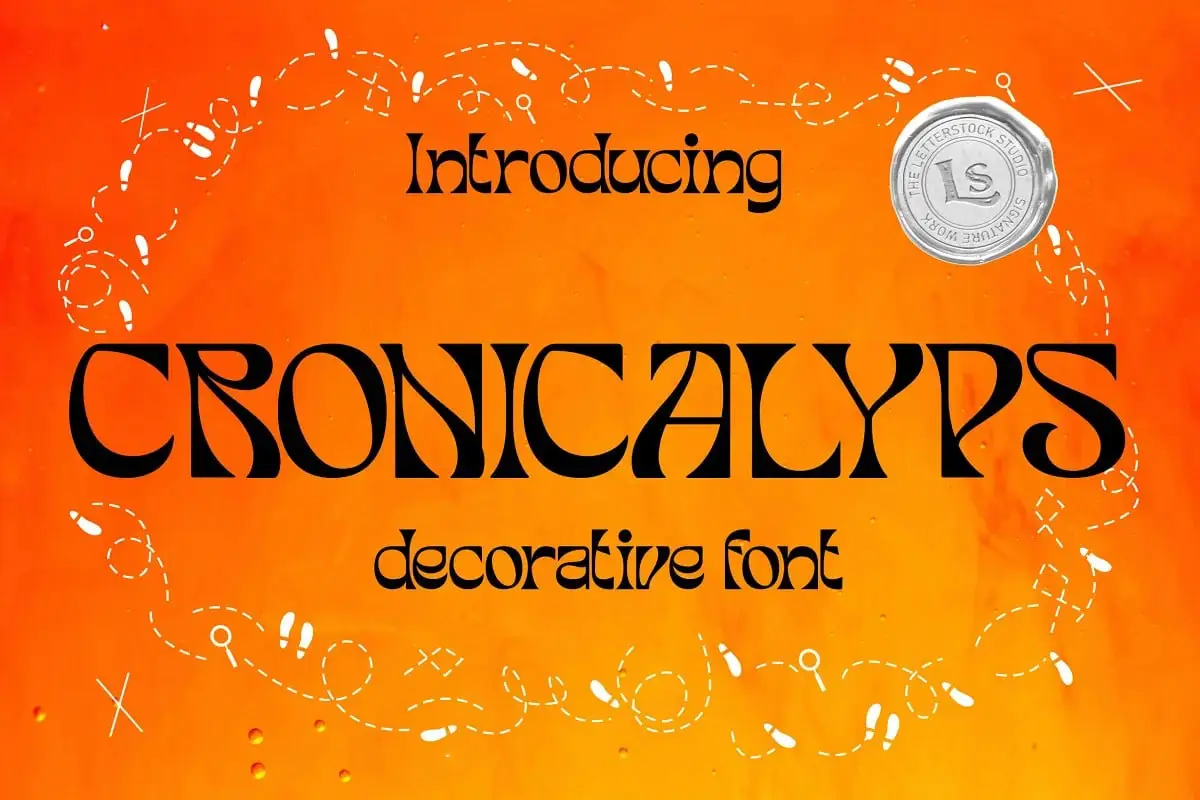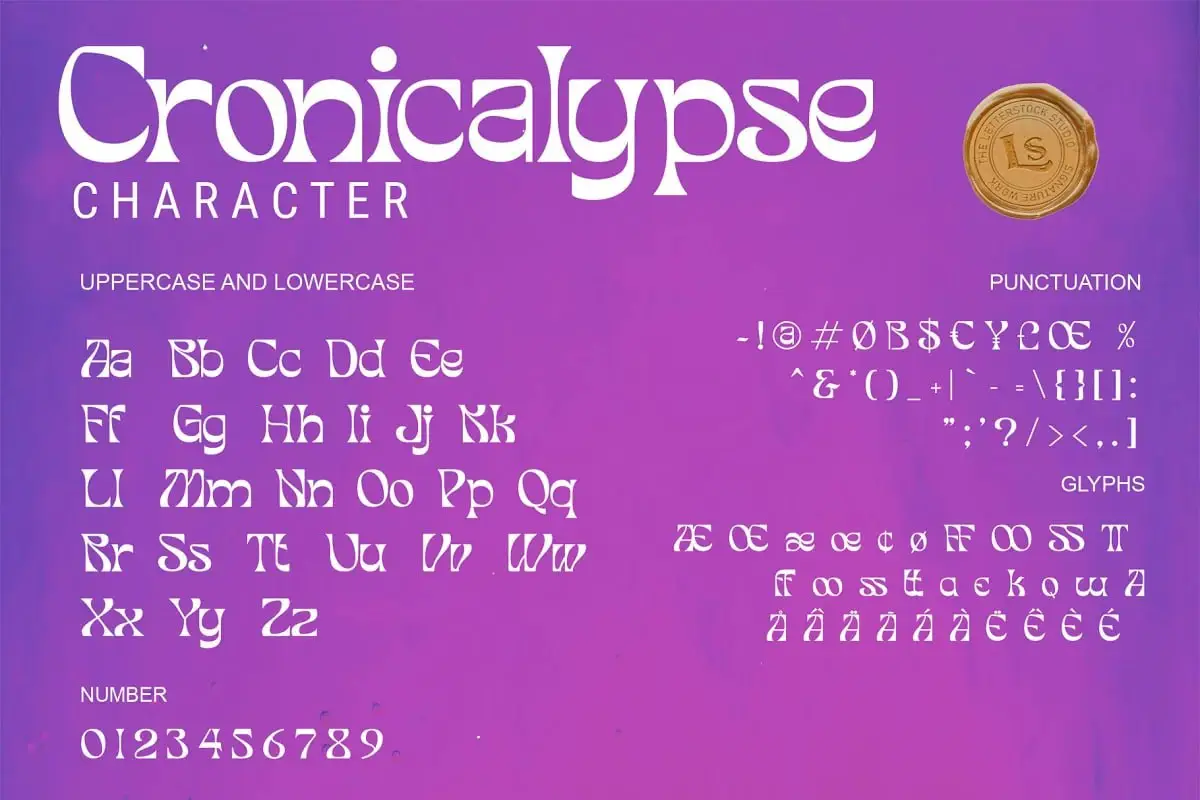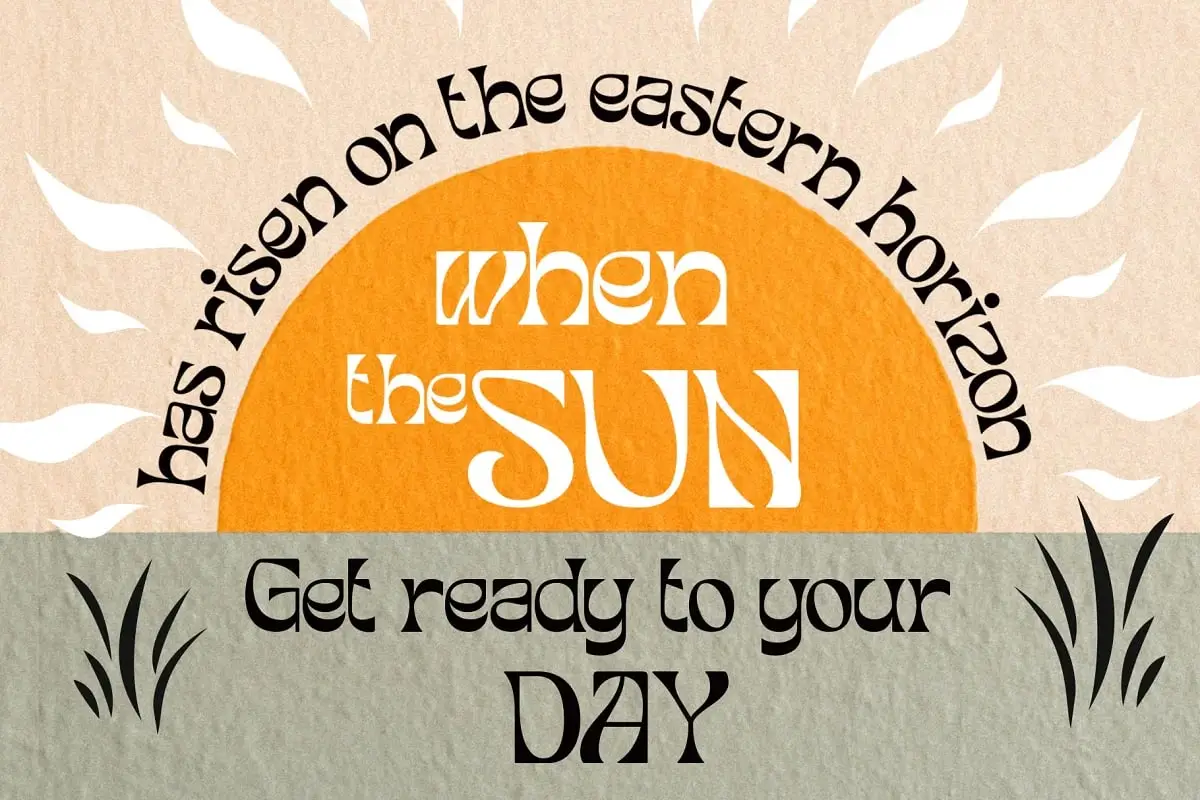
Cronicalypse Font
The Cronicalypse Font is a unique typeface that combines bold character with a modern aesthetic. This font is perfect for a wide range of applications, from branding and logos to web design and print materials.
• Multiple weights available
• Ideal for creating eye-catching logos and brand identities
• Great for headlines and promotional materials
• Use in digital and print projects for a cohesive look